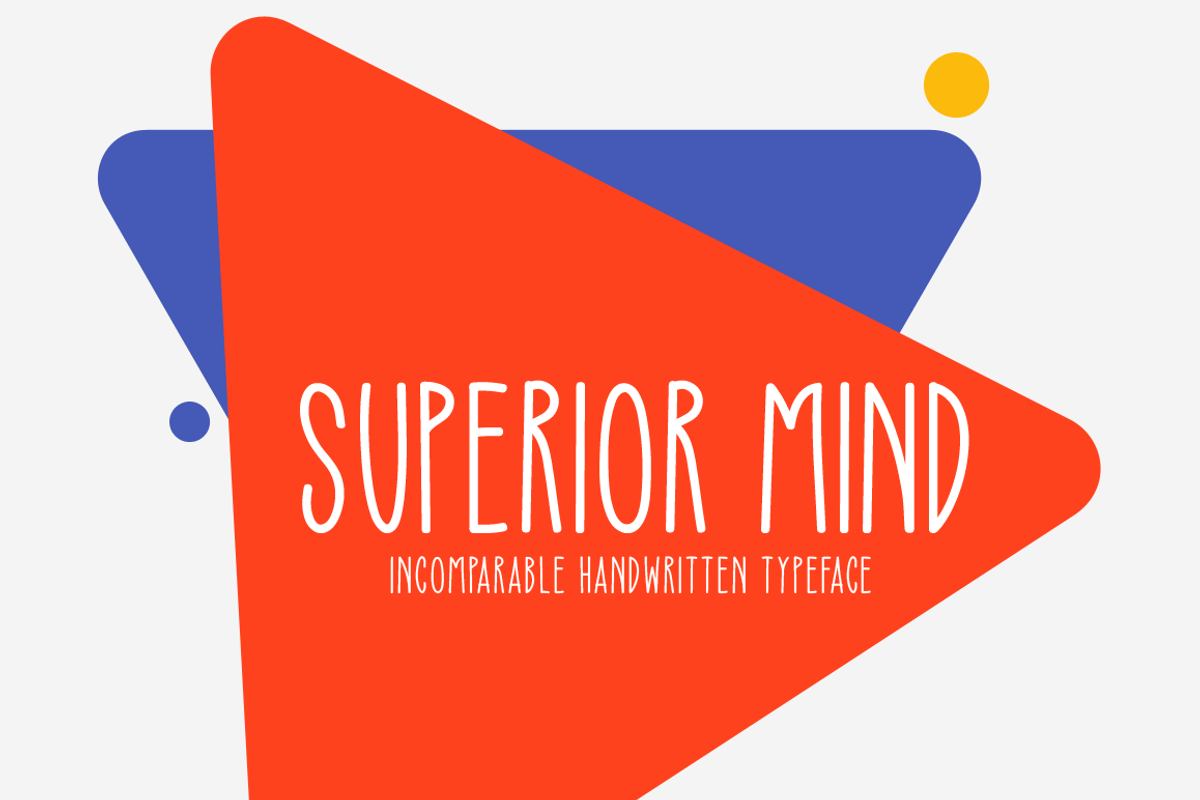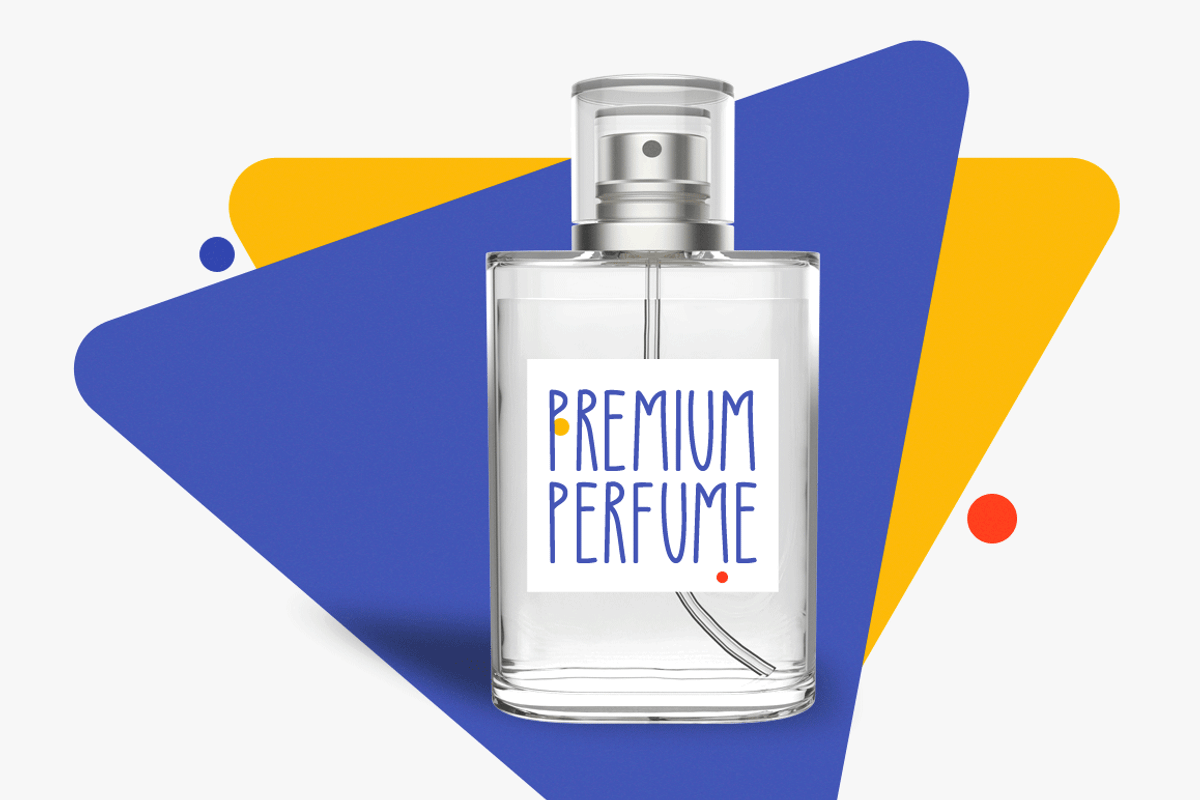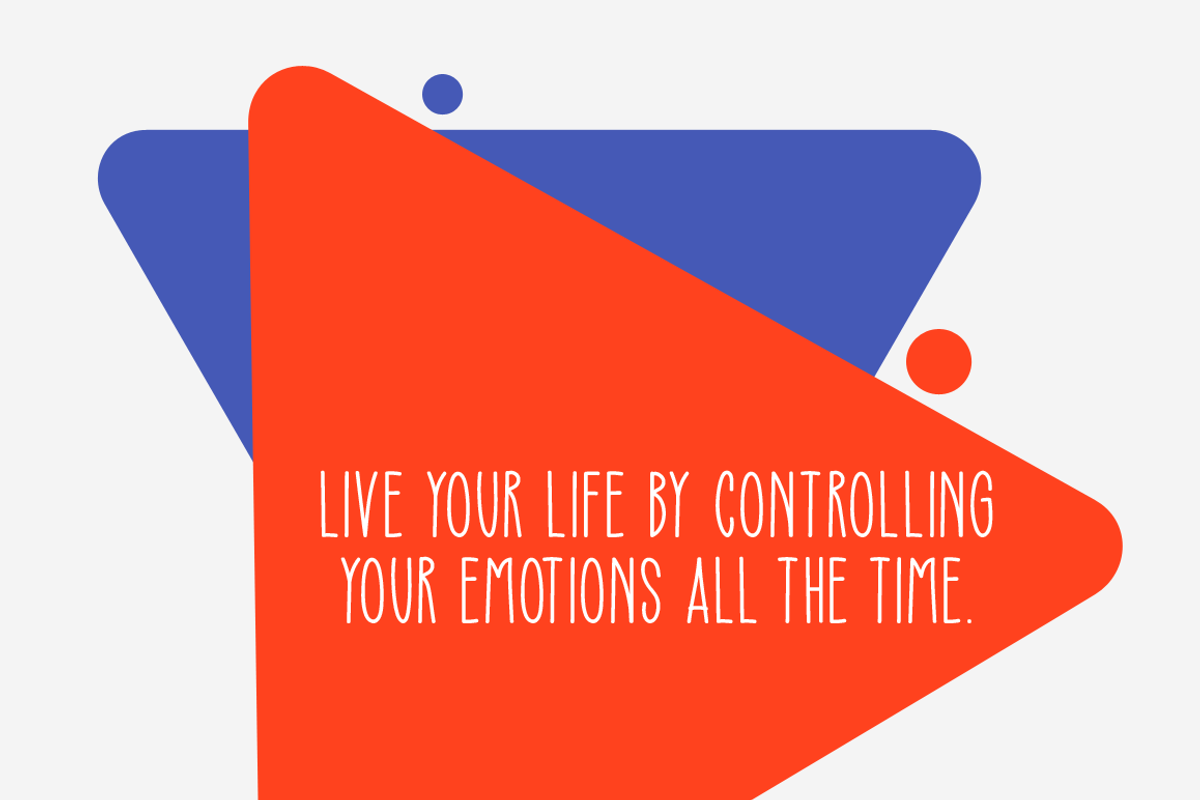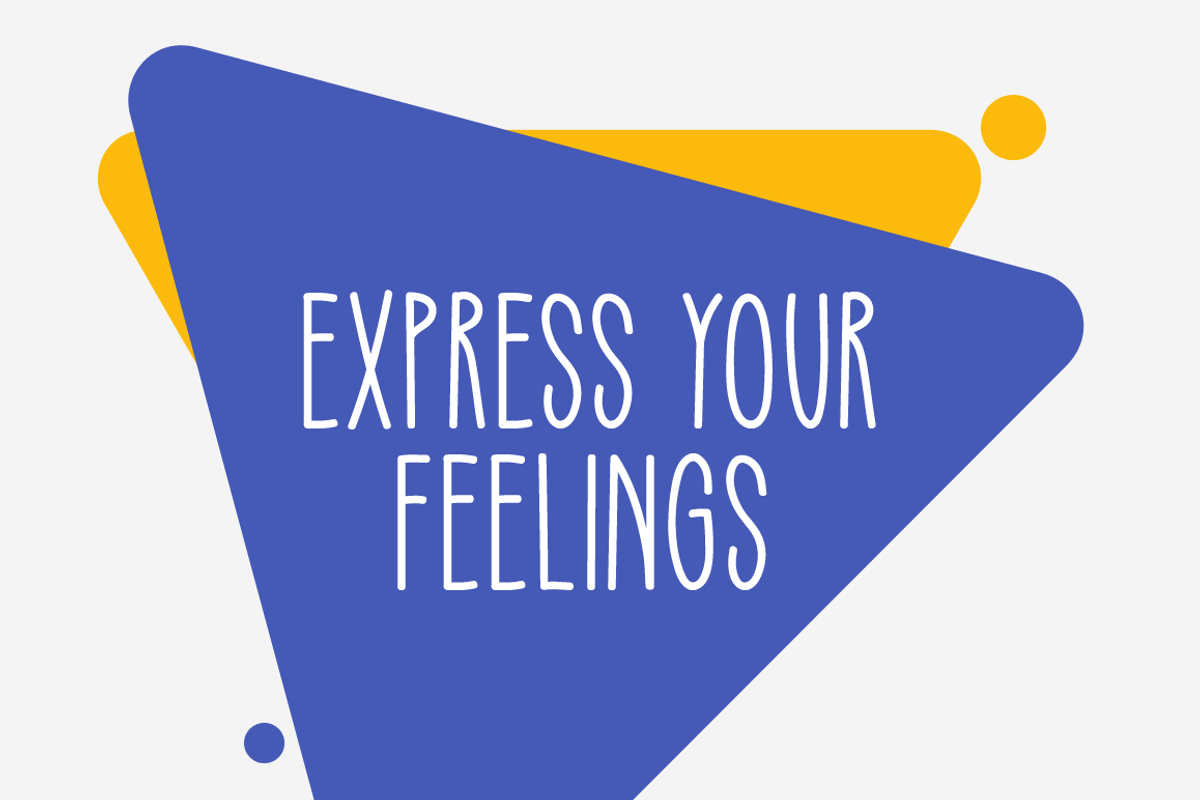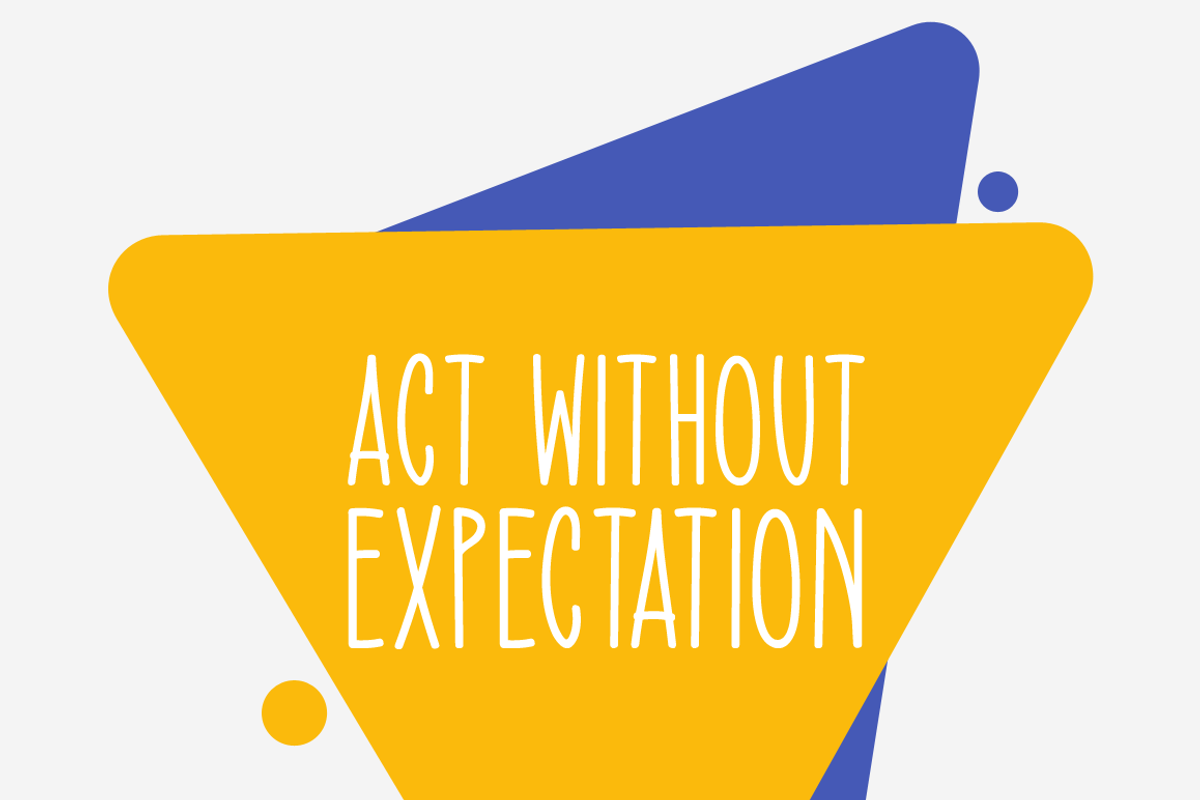
Superior Mind Typeface
Introducing Superior Mind!
Superior Mind is an incomparable and simple lettered handwritten font. It can easily be matched to an incredibly large set of projects, so add it to your creative ideas and notice how it makes them stand out!
Includes a range of multilingual support